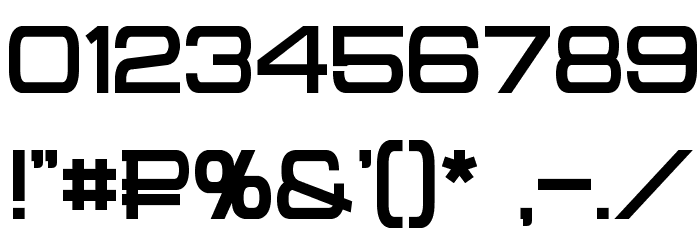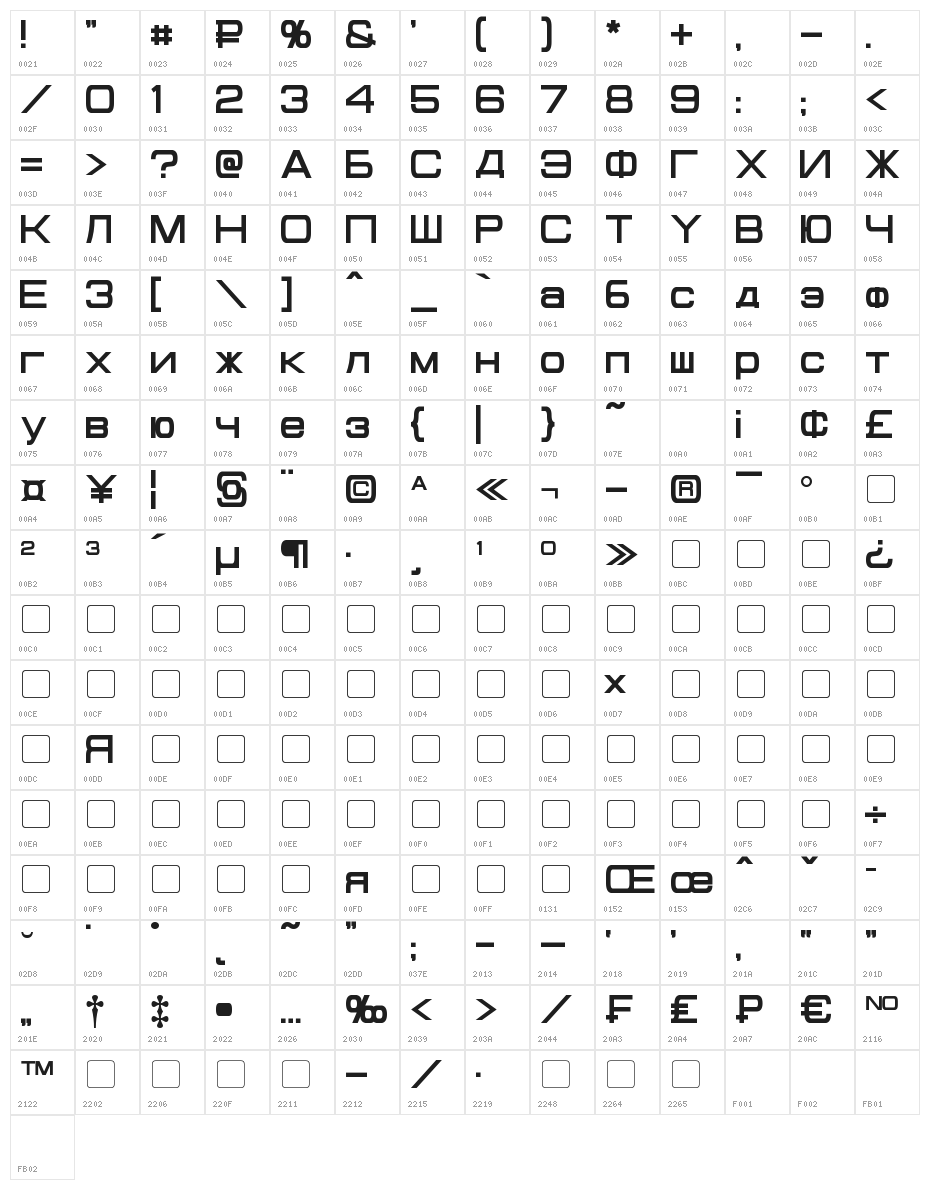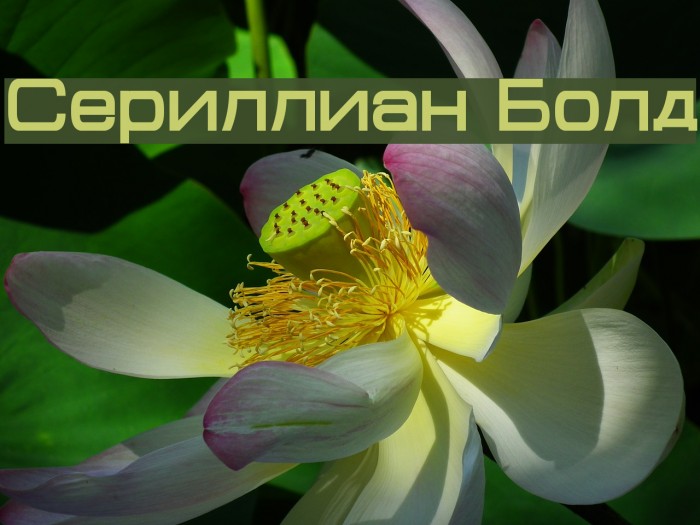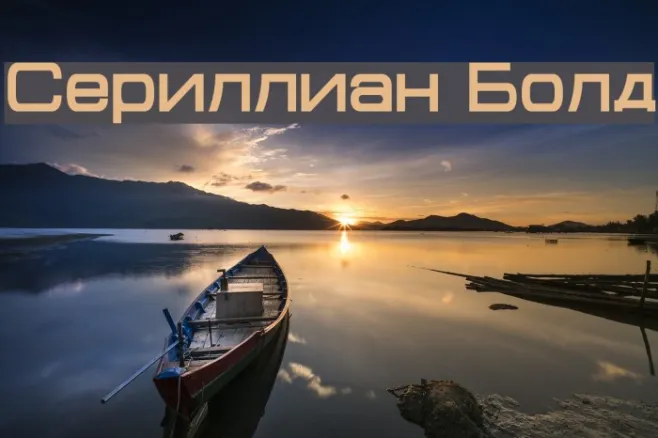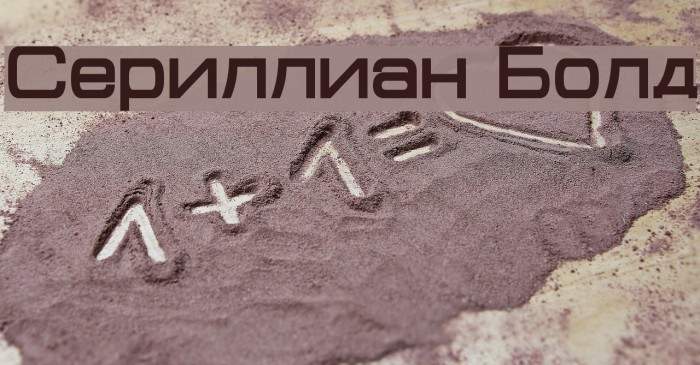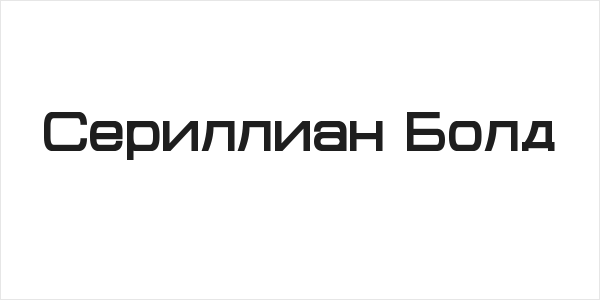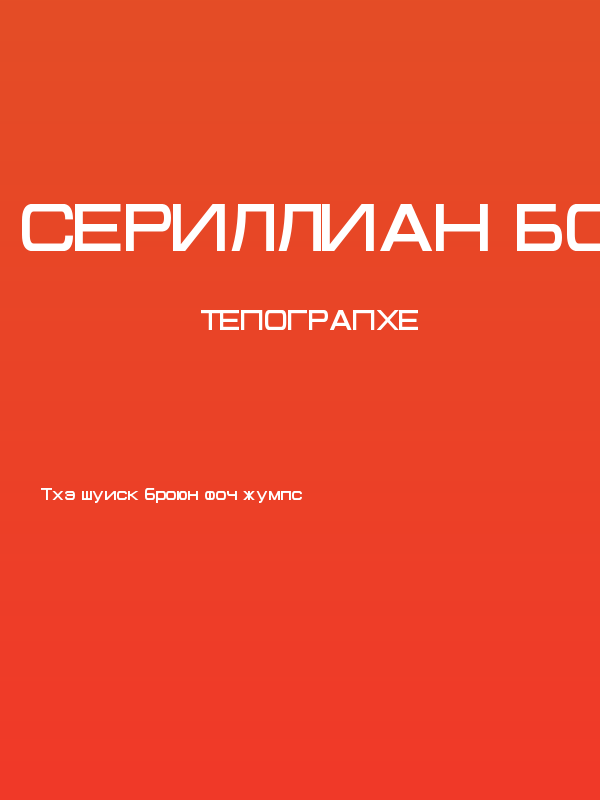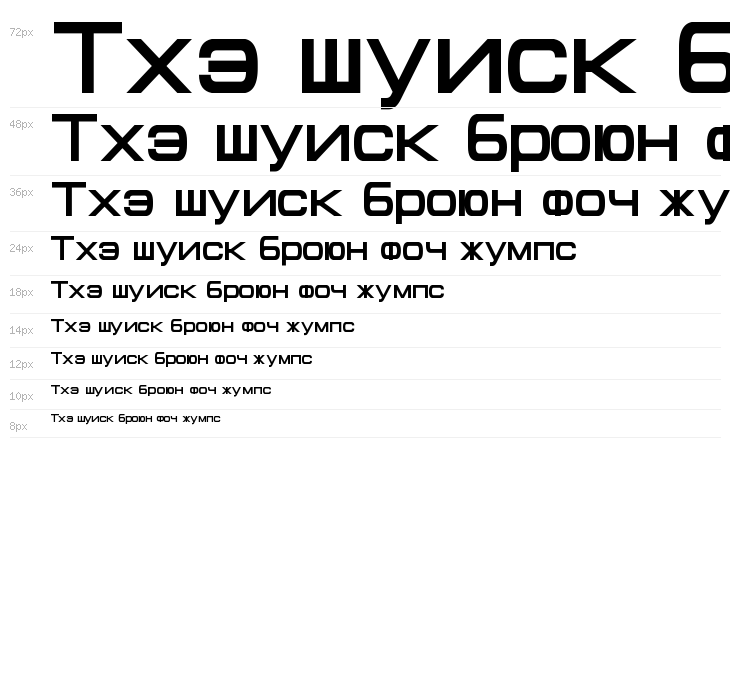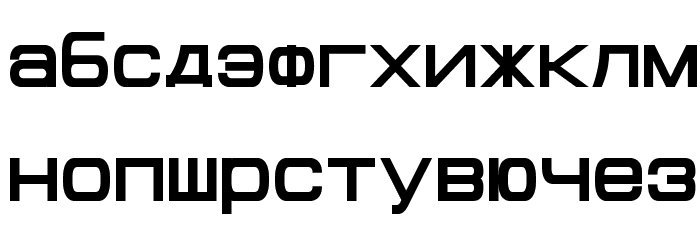
Cyrillian Bold Font
Cyrillian Bold Description
This font features a bold and modern design with a strong geometric structure. The characters are uniform in width, giving it a monospaced appearance, yet it maintains a contemporary aesthetic. The uppercase and lowercase letters are clearly defined, with sharp edges and clean lines, making it highly legible. The numerals are consistent with the overall style, providing a cohesive look. Special characters are distinct and easily recognizable, adding versatility to the font. Its boldness and clarity make it suitable for various applications where readability and impact are essential.